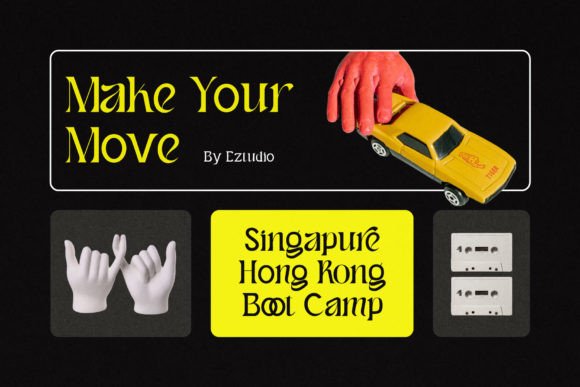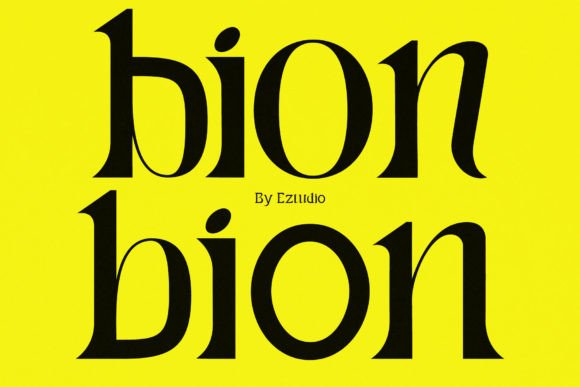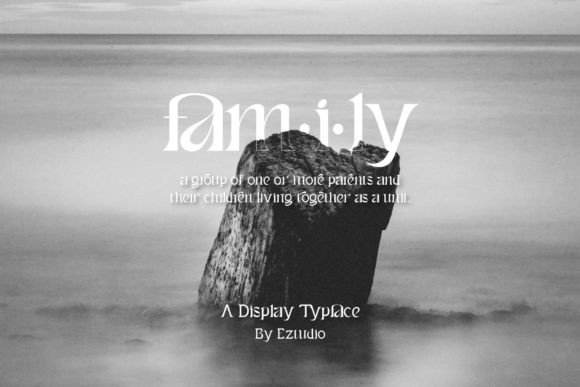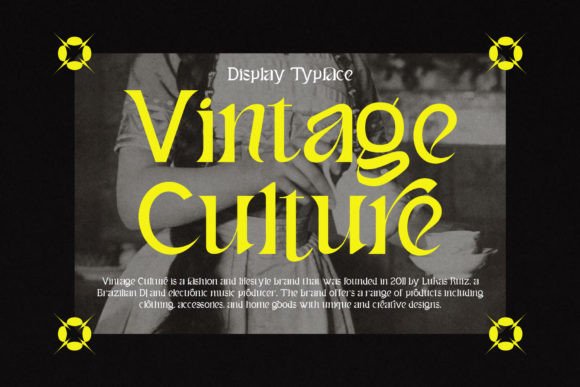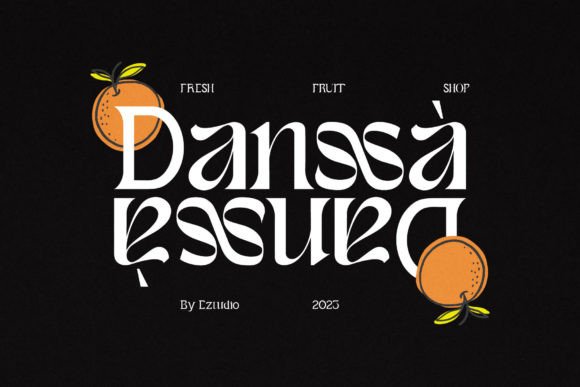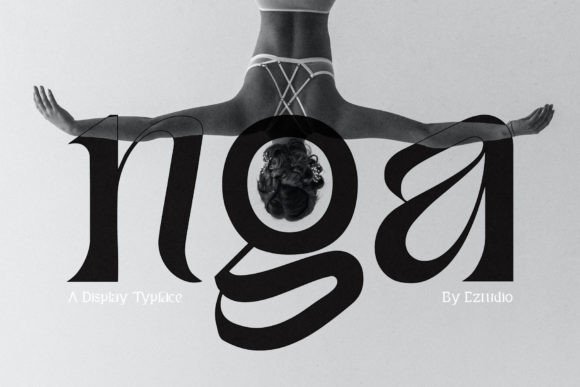
Destra Font: Elevate Your Design Projects with a Classy and Modern Look
In the world of typography, fonts play a crucial role in conveying the tone and personality of a design project. Among the numerous font options available, Destra Font stands out for its unique blend of elegance and modernity. This decorative font is designed to offer a classy and sophisticated look, making it suitable for a wide range of design projects. In this article, we’ll explore the features and benefits of Destra Font, and how it can elevate your design projects to the next level.
What is Destra Font?
Destra Font is a decorative font that boasts a distinctive and stylish appearance. Its classy and modern look makes it an excellent choice for designers and crafters seeking to add a touch of sophistication to their projects. Whether you’re working on a logo, branding, invitation, stationery, wedding design, or social media post, Destra Font is an excellent option to consider.
Key Features of Destra Font
- Flexible and Versatile: Destra Font offers flexible and versatile capabilities, allowing you to use it across various design projects. Its adaptability makes it easy to pair with other fonts, ensuring a cohesive look and feel.
- Luxurious Feel: With Destra Font, you can instantly elevate the luxurious feel of any design project. Its elegant and sophisticated appearance makes it perfect for high-end branding, wedding designs, and other luxury-related projects.
- Wide Range of Applications: Destra Font is suitable for a wide range of design projects, including logos, branding, invitations, stationery, wedding designs, social media posts, and more.
Benefits of Using Destra Font
Using Destra Font in your design projects offers several benefits, including:
- Enhanced Visual Appeal: Destra Font’s classy and modern look instantly enhances the visual appeal of your design projects, making them more engaging and attention-grabbing.
- Professional and Sophisticated Look: With Destra Font, you can achieve a professional and sophisticated look that’s perfect for luxury brands, wedding designs, and other high-end projects.
- Time-Saving: Destra Font’s versatility saves you time and effort, as you can use it across various design projects without worrying about pairing it with other fonts.
How to Use Destra Font in Your Design Projects
Using Destra Font in your design projects is straightforward. Here are some tips to get you started:
- Pair it with Other Fonts: Experiment with pairing Destra Font with other fonts to create a unique and cohesive look.
- Use it for Headings and Titles: Destra Font is perfect for headings and titles, where its elegant and sophisticated appearance can shine.
- Experiment with Colors and Textures: Try out different colors and textures to add depth and visual interest to your design projects.
In conclusion, Destra Font is a versatile and elegant font that offers a classy and modern look, making it suitable for a wide range of design projects. Its flexible and versatile capabilities, luxurious feel, and wide range of applications make it an excellent choice for designers and crafters. By incorporating Destra Font into your design projects, you can elevate their visual appeal, achieve a professional and sophisticated look, and save time and effort. So why not give Destra Font a try and experience its benefits firsthand?